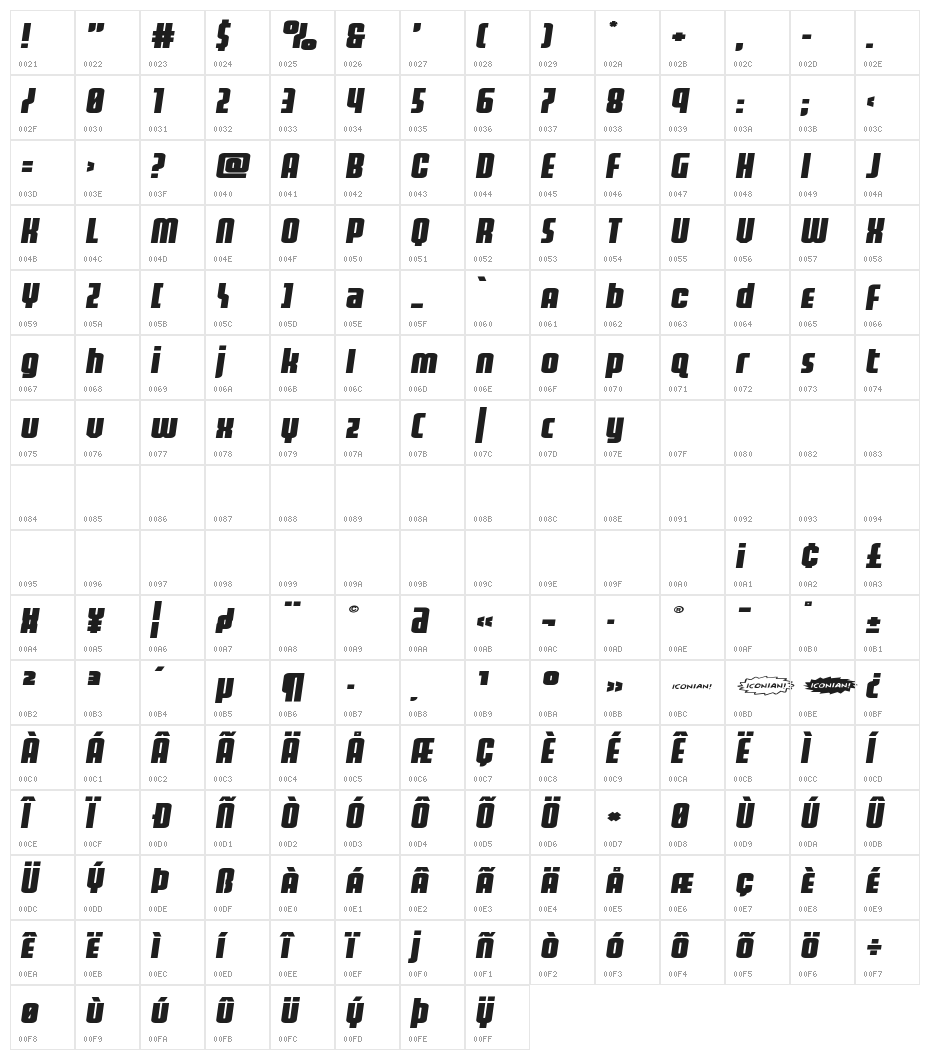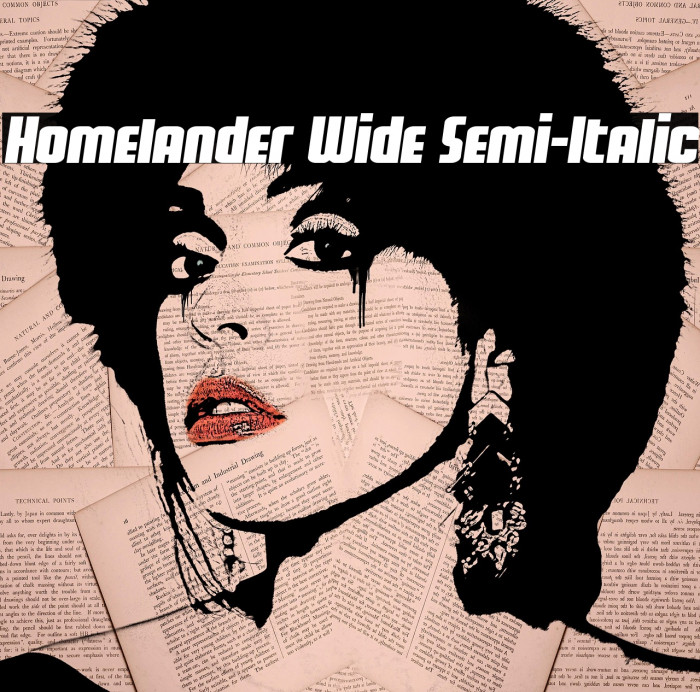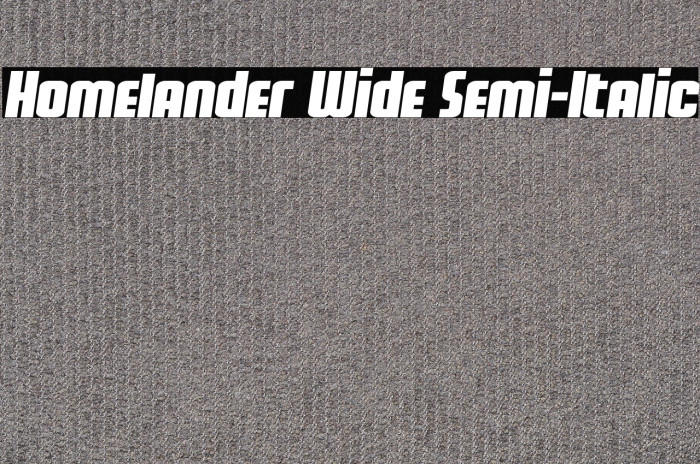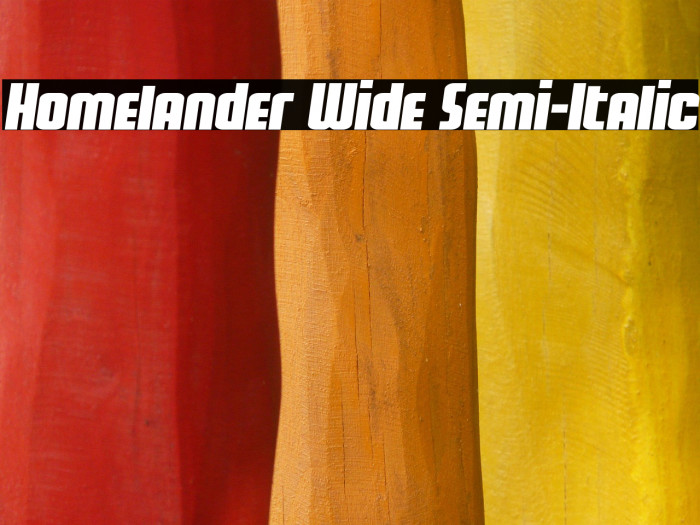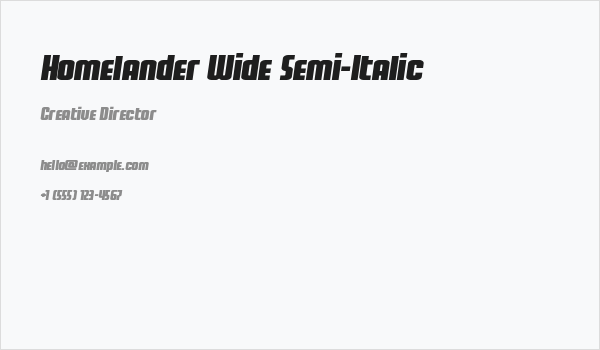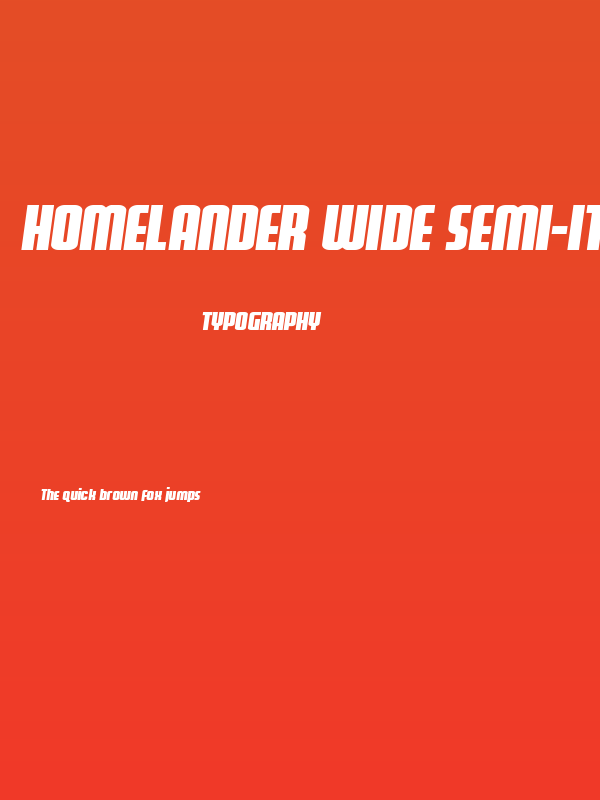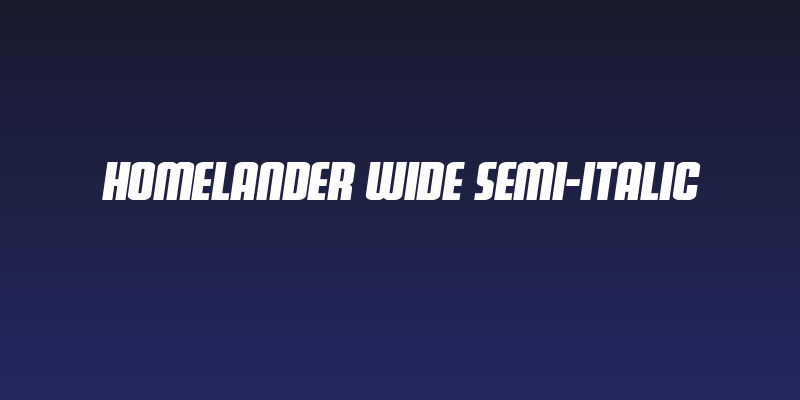
Homelander Wide Semi-Italic Font
Homelander Wide Semi-Italic Description
This font features a bold and dynamic style with a semi-italic slant, giving it a sense of movement and energy. The characters are wide and robust, making a strong visual impact. The uppercase letters are particularly striking, with a consistent height and width that convey strength and stability. The lowercase letters maintain the same boldness, ensuring readability and uniformity across different text sizes. The numerals and special characters are designed with the same attention to detail, providing a cohesive look throughout. The overall design is modern and assertive, suitable for projects that require a strong and confident typographic presence.
| Proposed Projects | Ideal for branding, advertising, sports team logos, and headlines that need to capture attention. |